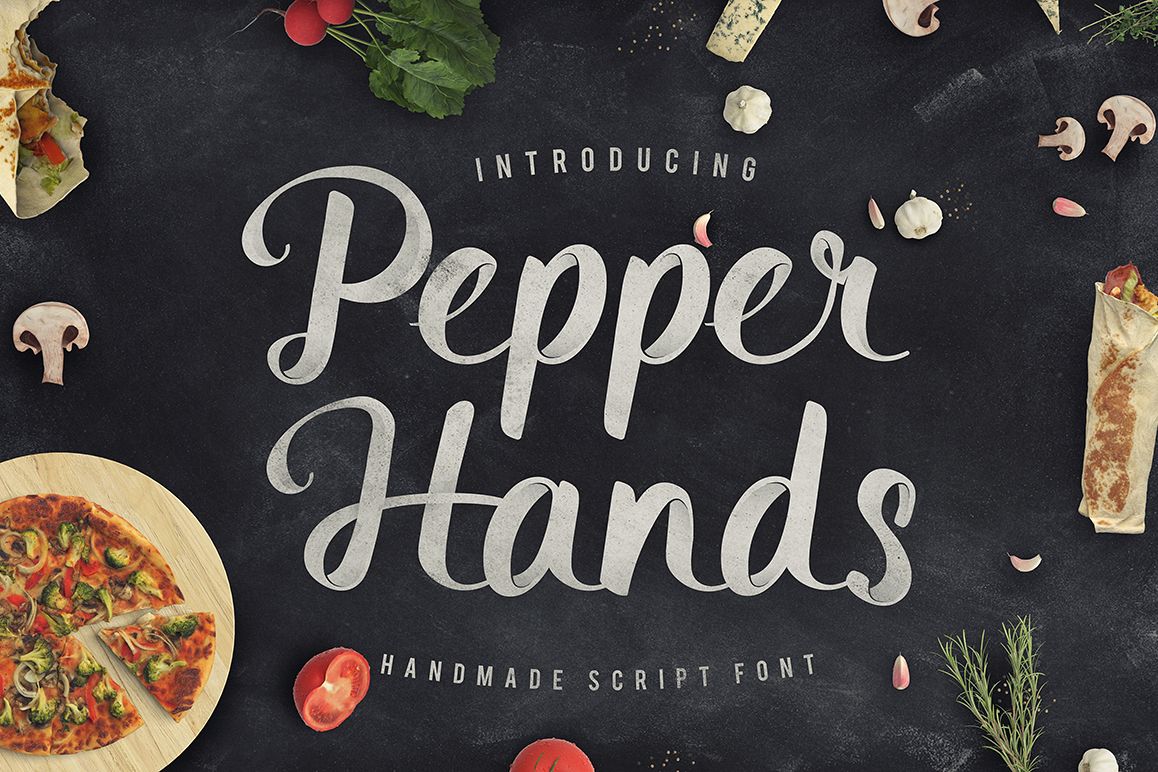
Introducing "Pepper Hands" a homemade script font that represents that classic feel for the art of lettering. This font contains uppercase, lowercase, numbers, symbols and punctuation as standard.